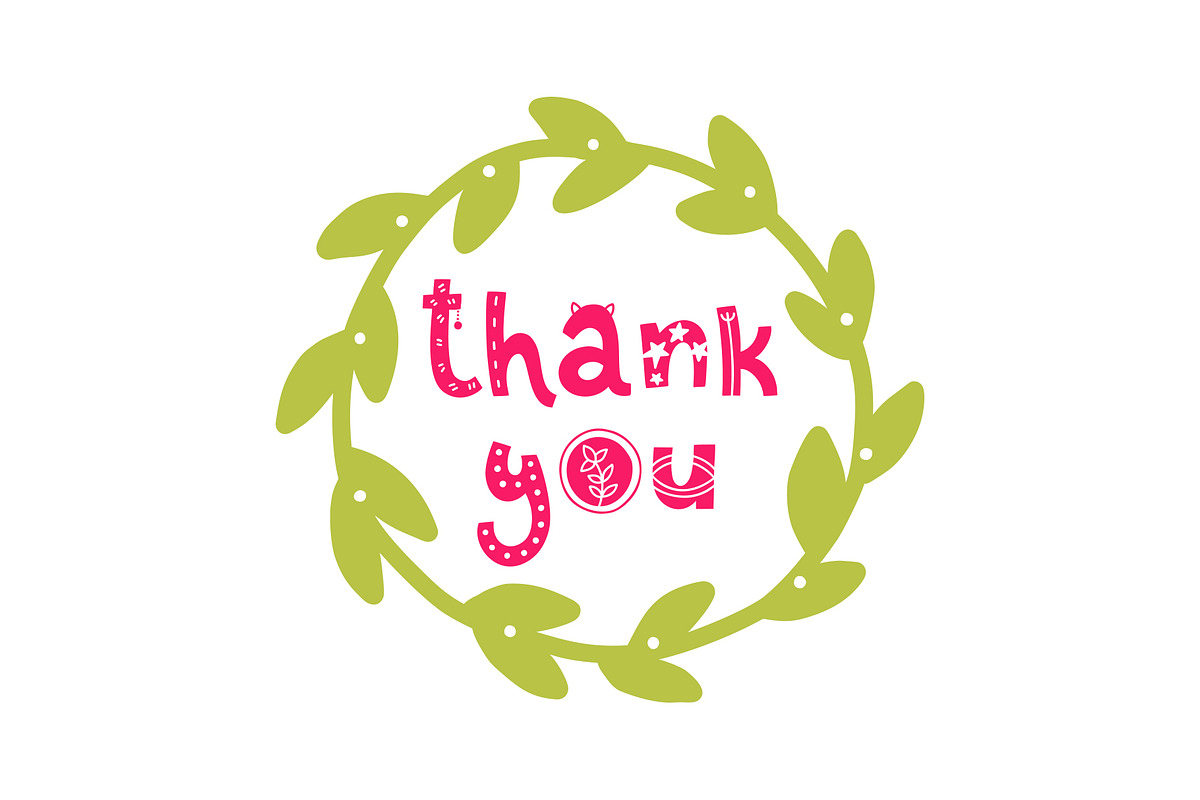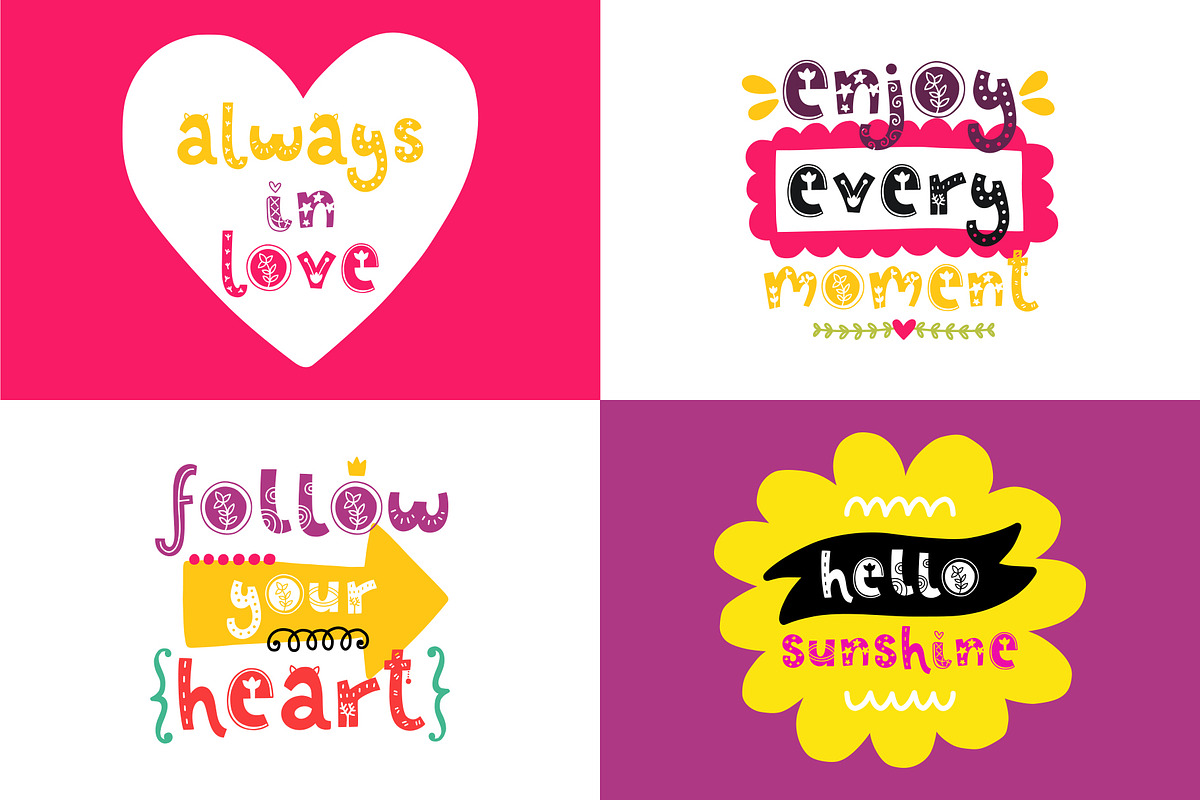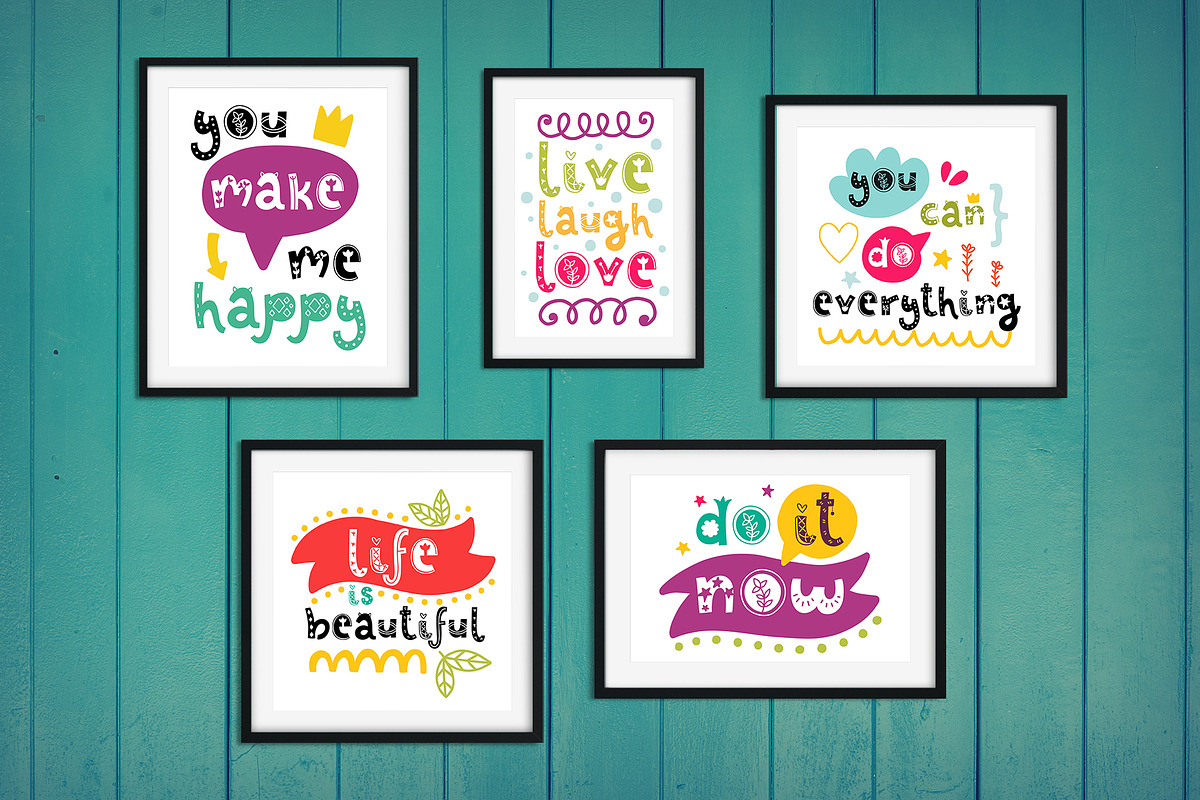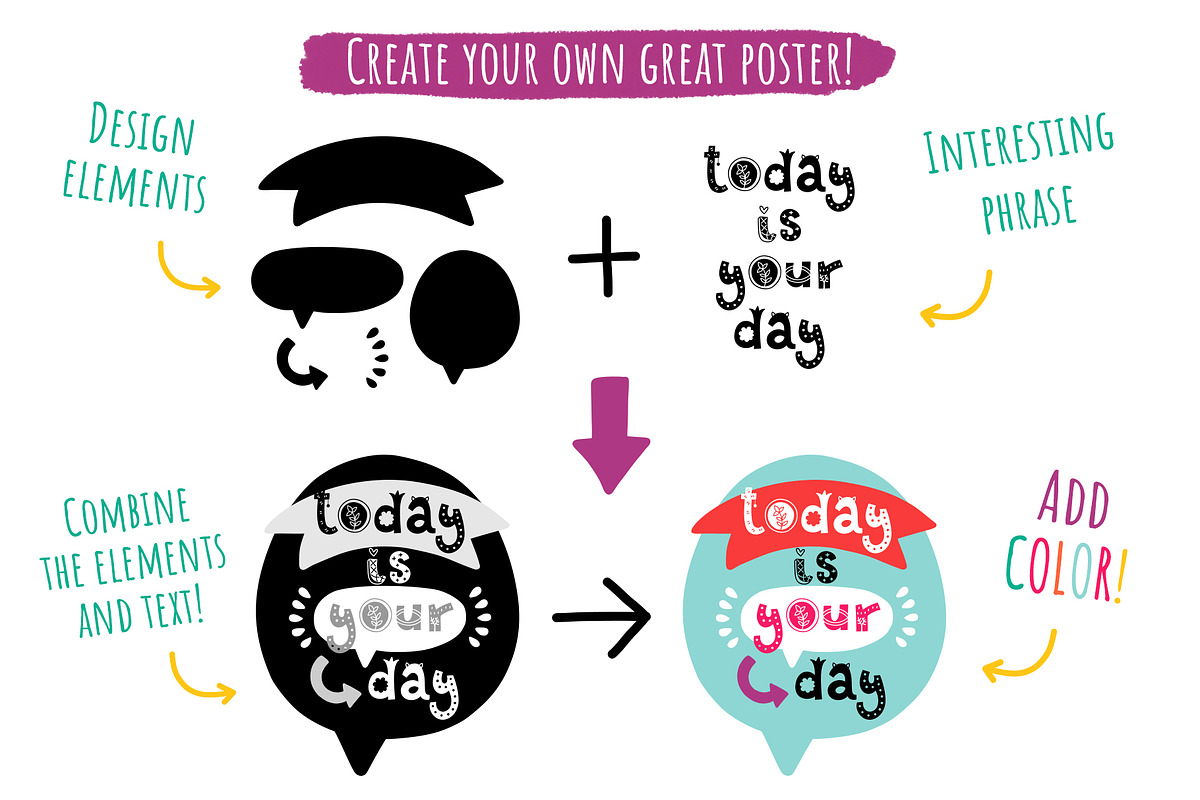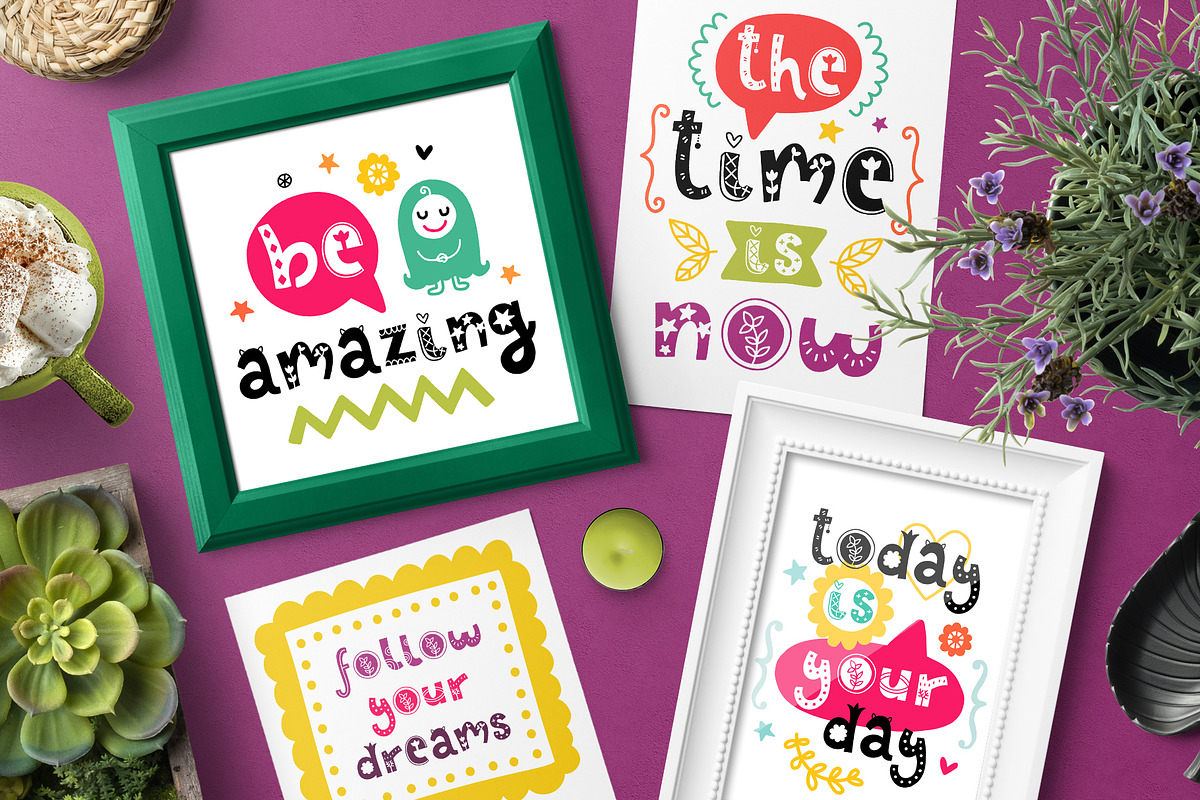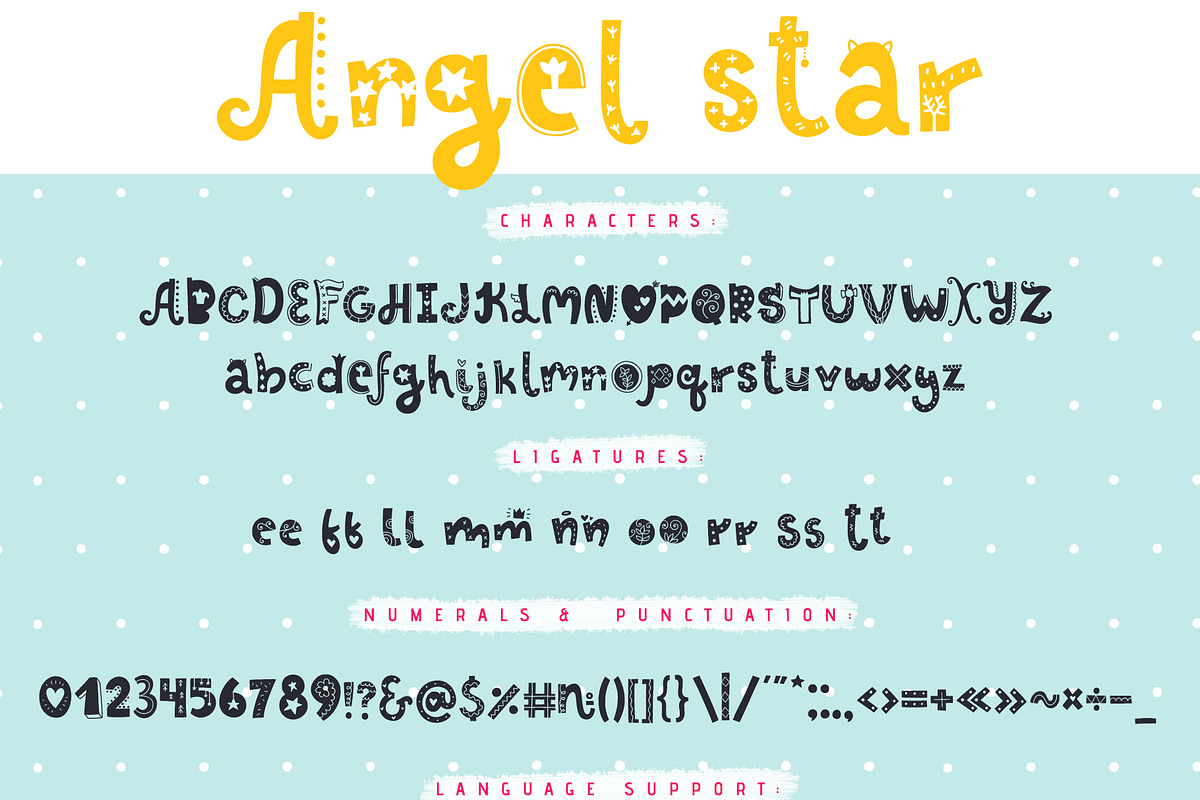
Angel Star - Decorative Typeface
Angel Star Typeface - decorative font for your projects!
This hand drawn font is perfect for cards, prints, logos, wedding invitations, arrange illustration and decoration. This pack includes 136 decor elements!
It has upper and lower case letters, numbers, special characters, accents.